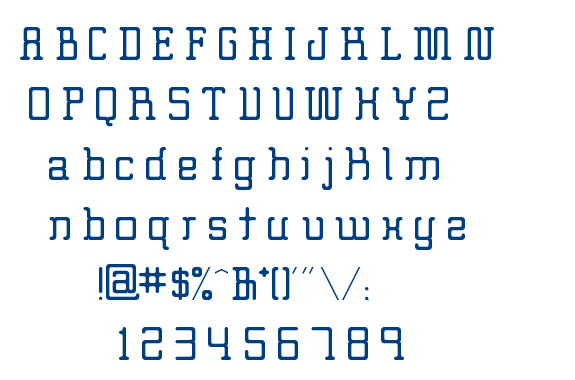
Tiny Small Medium Large Big Foot font EAS Website big_foot.ttf Download 4138 downloads Donationware Category: Basic Big Foot is a medium typeface created for posters and headlines. Like the name suggests Big Foot is a font with peculiar serifs. Character Map specimen sheet